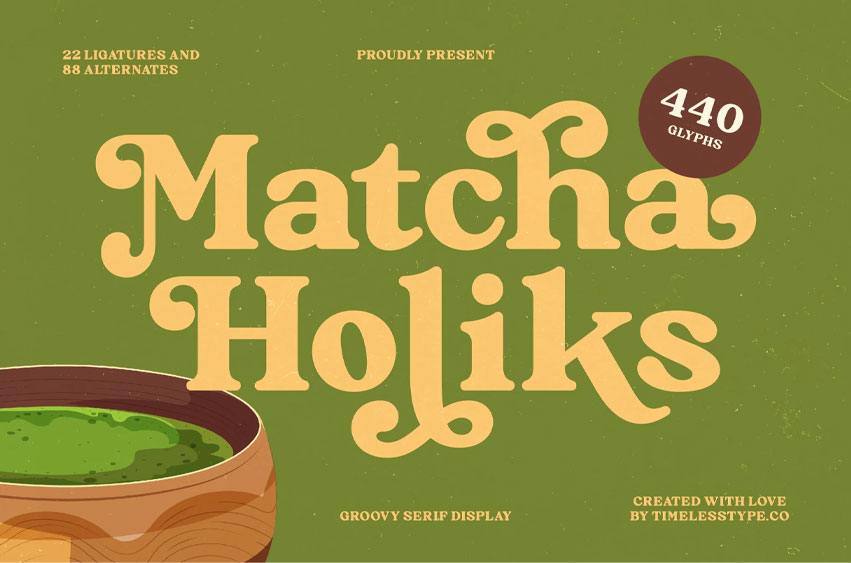
Matcha Holiks Font
Matcha Holiks Font is a groovy serif display font with warm retro curves, playful letterforms, and bold character designed to bring a nostalgic yet modern charm to any project.
Inspired by 70s organic typography and handcrafted signage, this typeface blends chunky serifs with smooth swashes, making it ideal for branding, packaging, café identities, editorial layouts, and eye-catching display headlines. With 440 glyphs, 22 ligatures, and 88 stylistic alternates, Matcha Holiks offers extensive creative flexibility and a unique personality that instantly elevates visual storytelling.